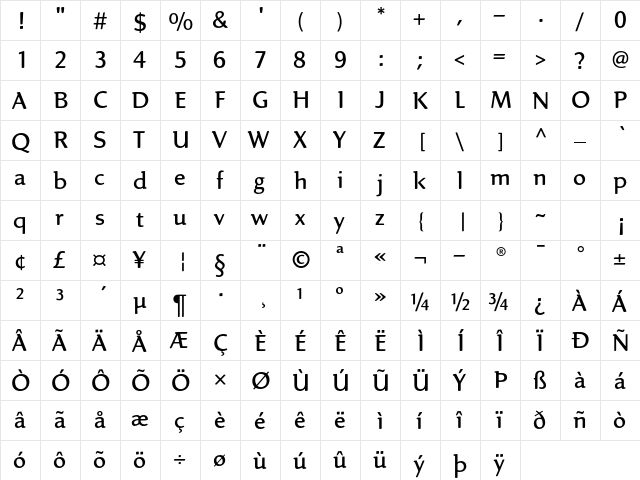
Linex Sweet Std Light
Design Context for Linex Sweet Std Typeface
Linex Sweet Std takes a measured approach to typography — its balanced proportions and neutral character make it a reliable workhorse for both digital and print work. Its slender proportions lend an understated elegance to any composition.